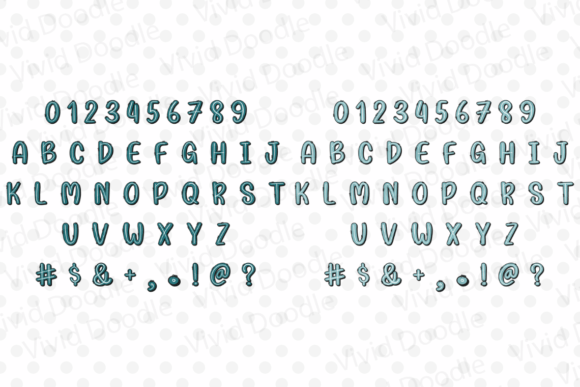
Rainbow in November Font
Introducing the “Rainbow in November” Handwritten Font:
Experience the beauty of autumn with the “Rainbow in November” handwritten font. This elegant typeface captures the essence of a colorful November day, blending the charm of handwritten letters with the warmth of fall hues. Ideal for seasonal greetings, event invitations, cozy posters, and heartfelt notes, “Rainbow in November” adds a touch of seasonal magic to your designs. Let your creativity flourish and bring the spirit of November to life with this captivating and versatile font.